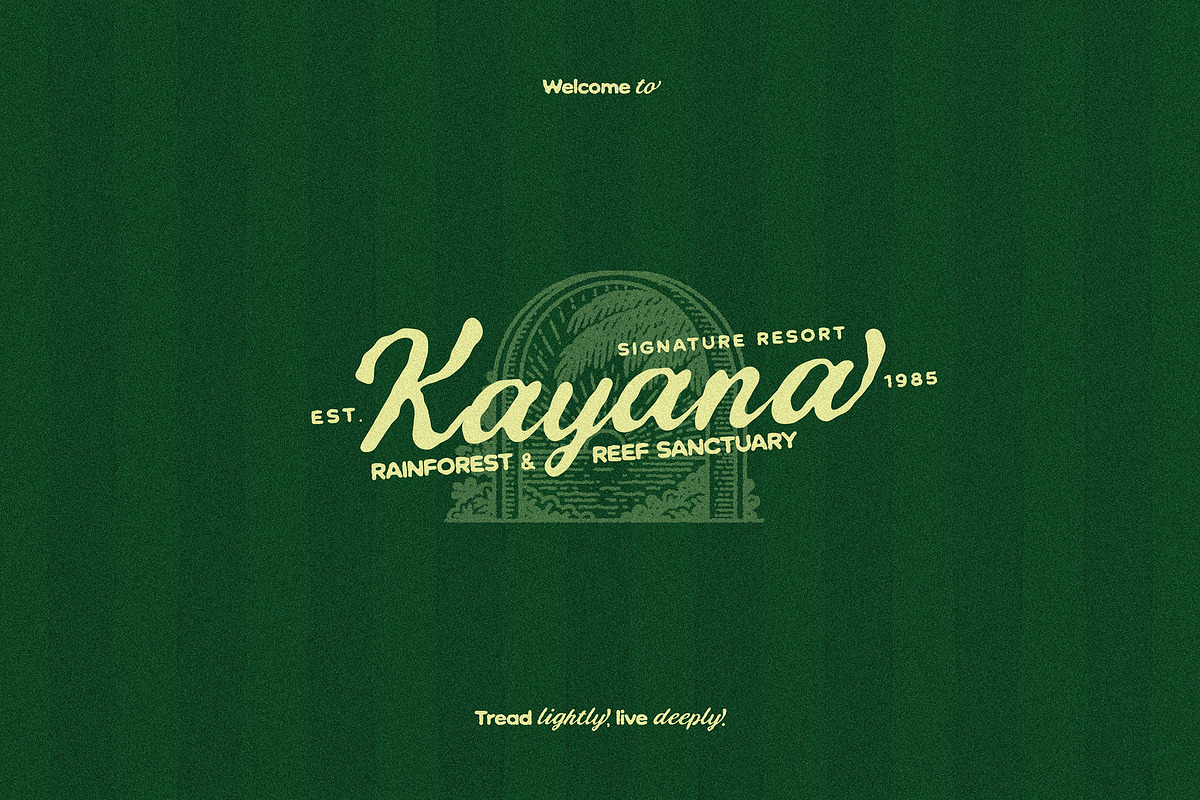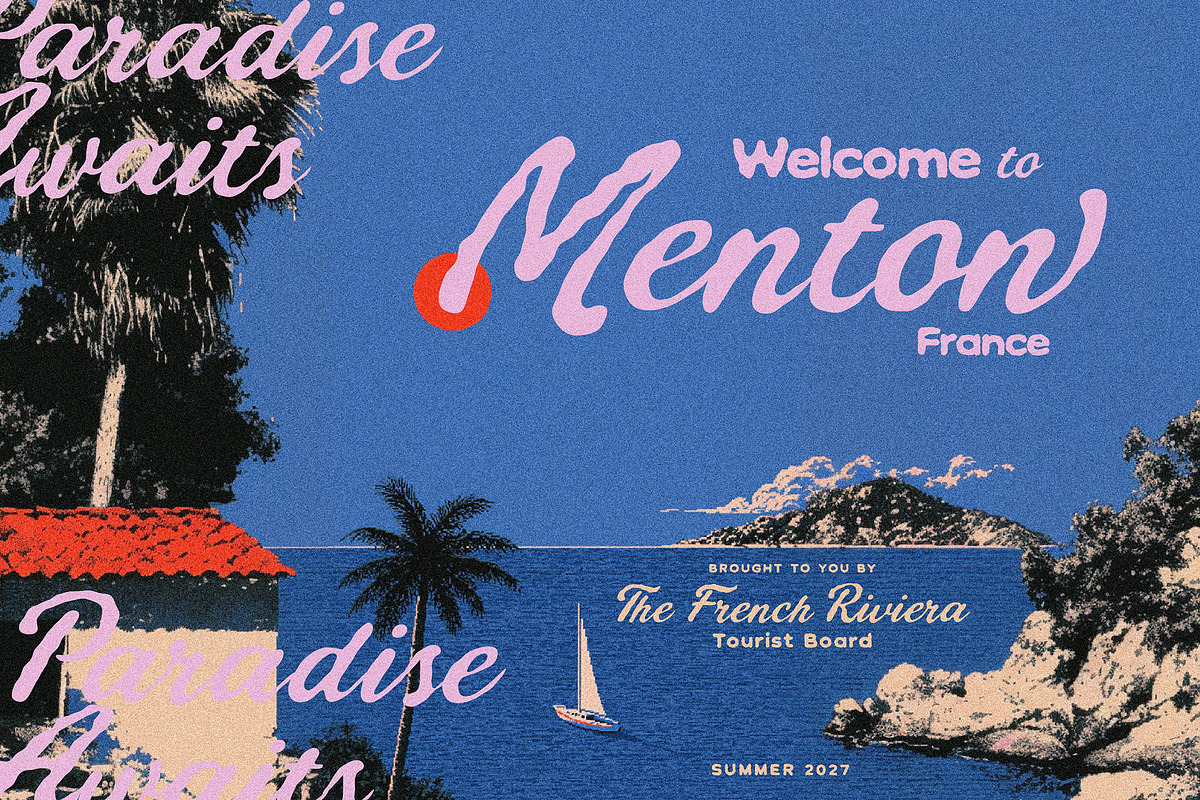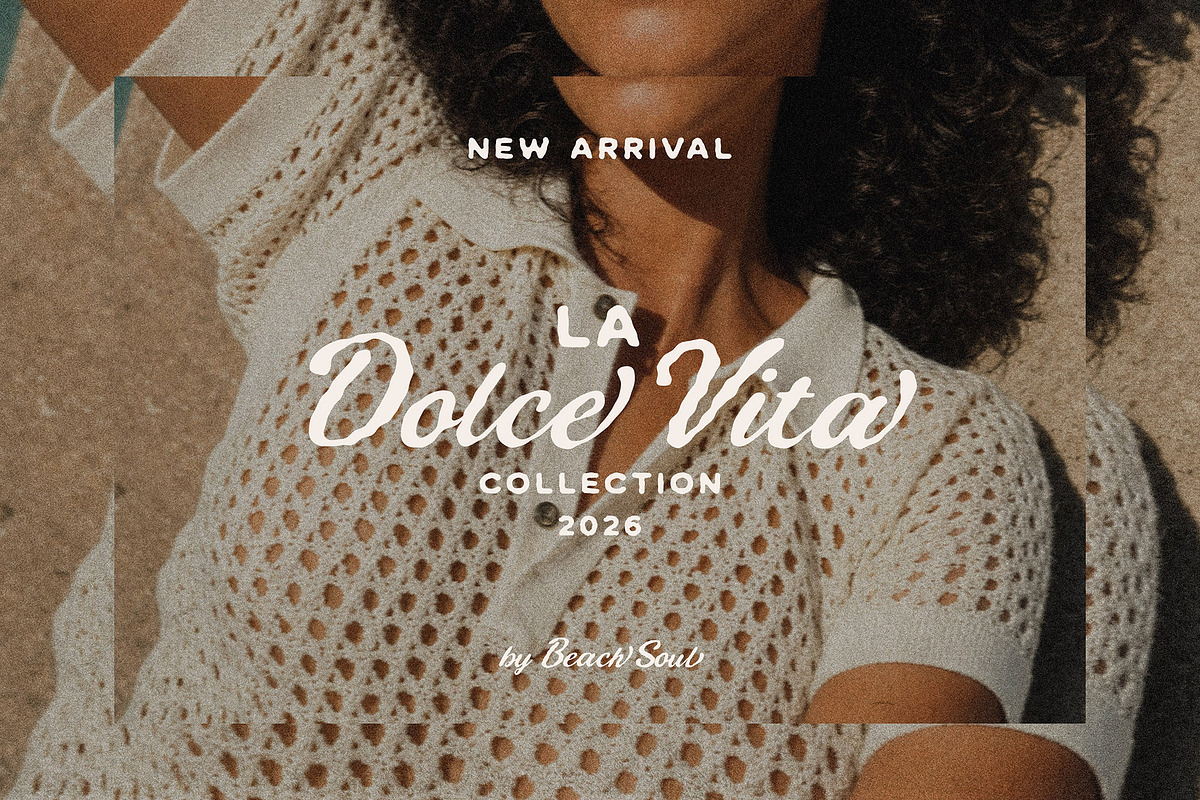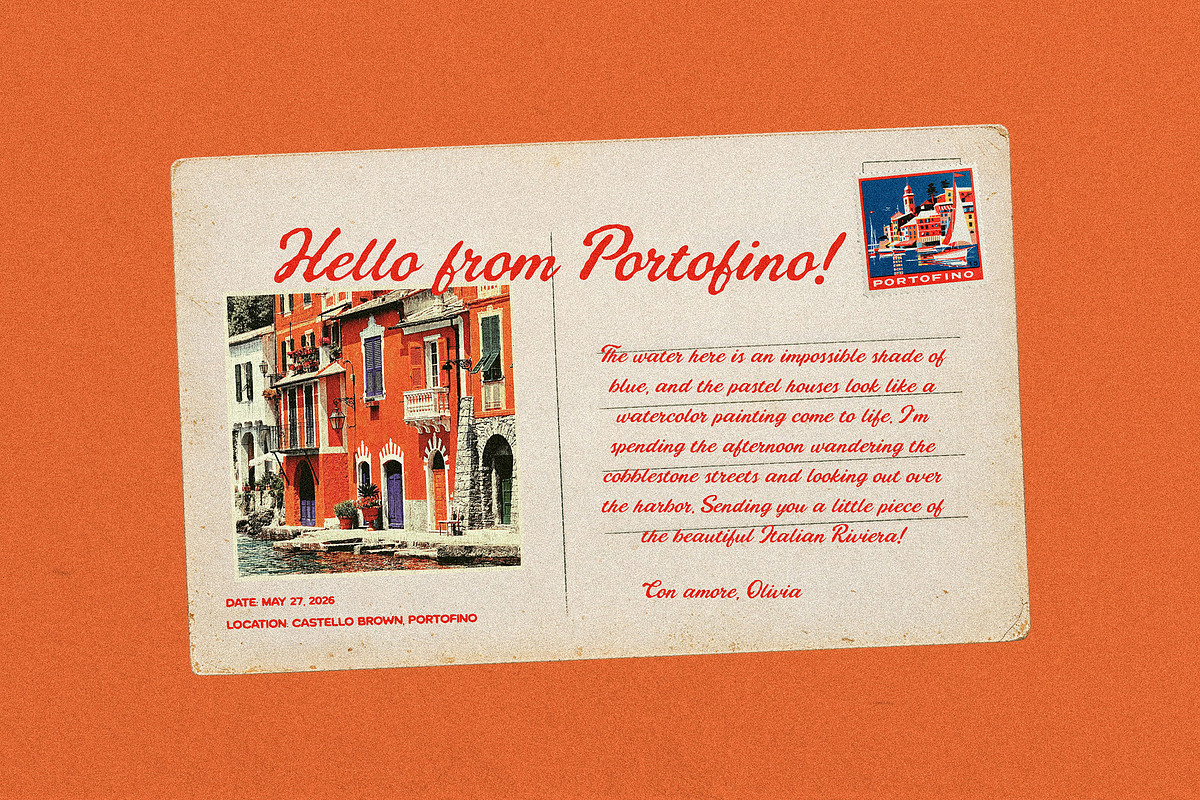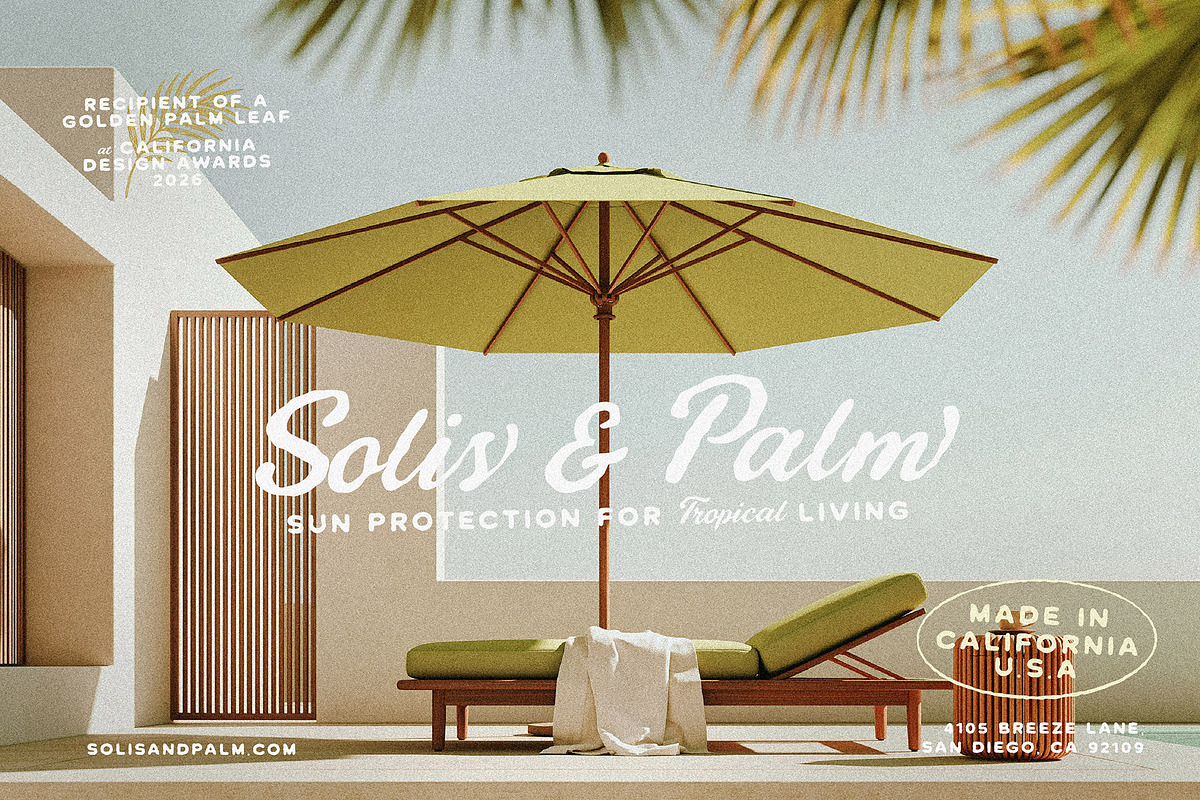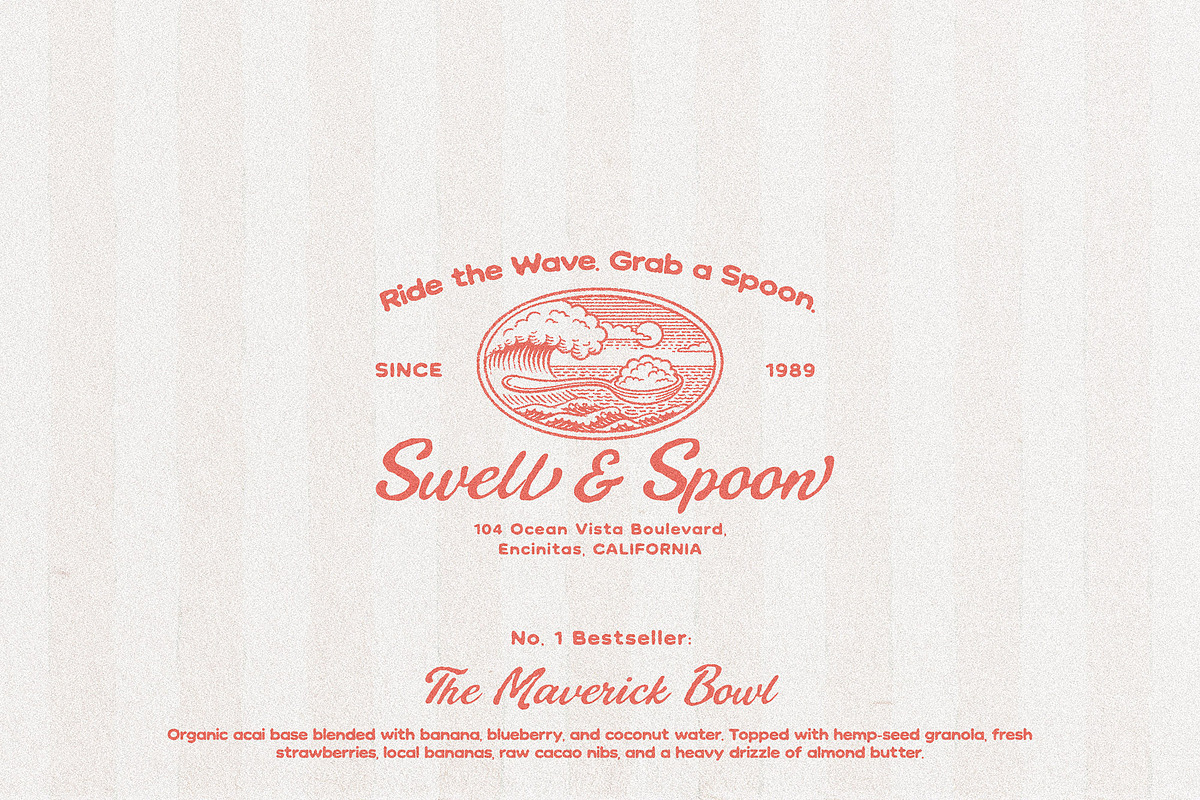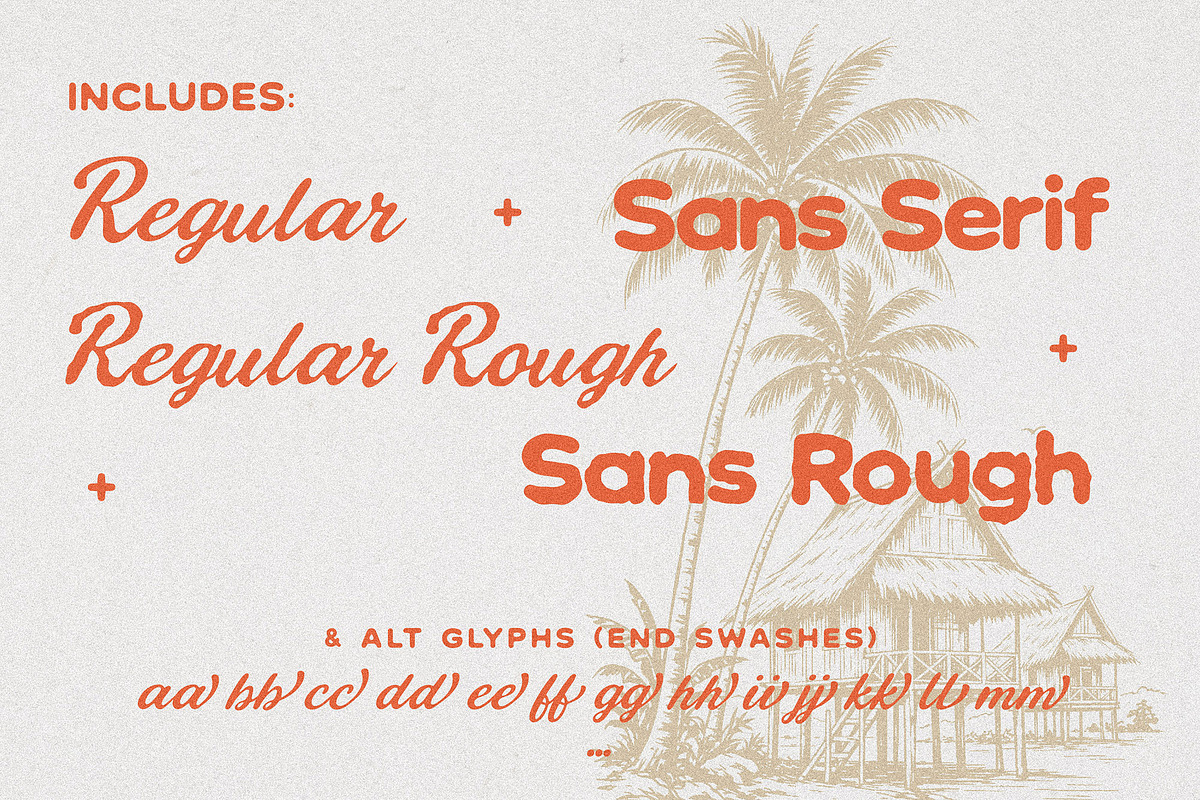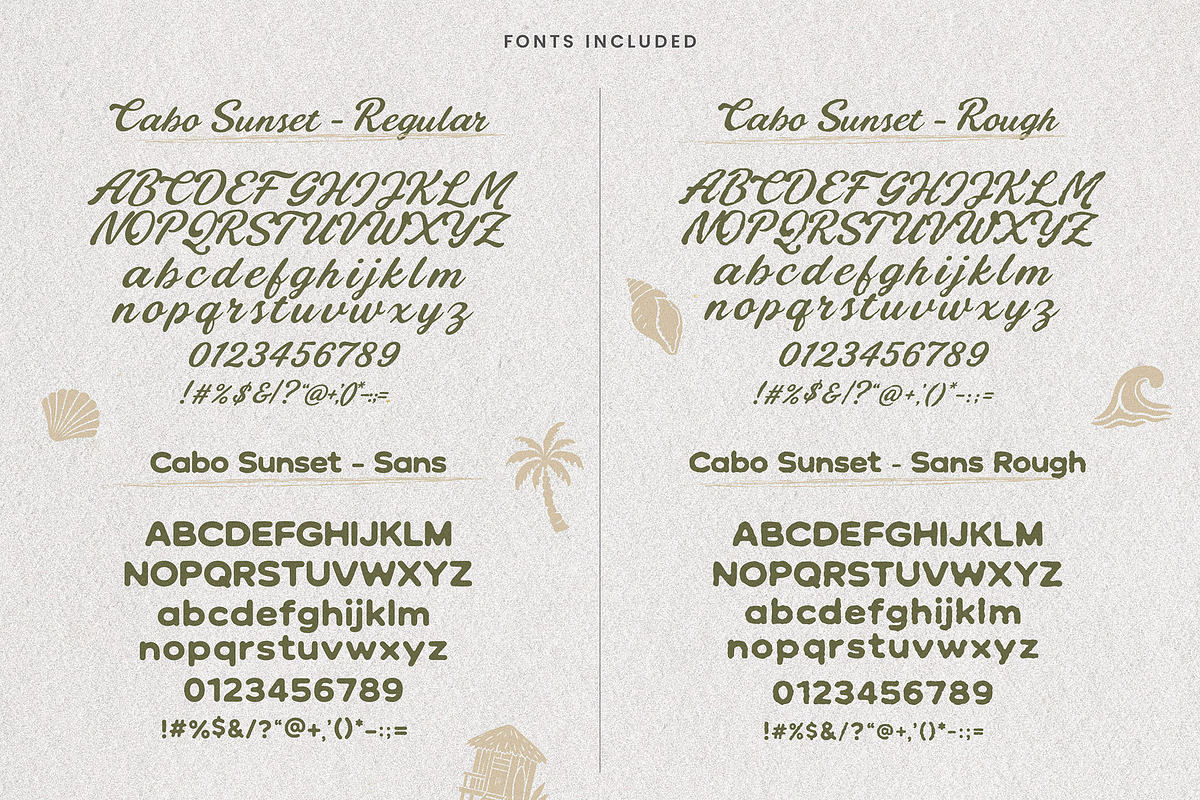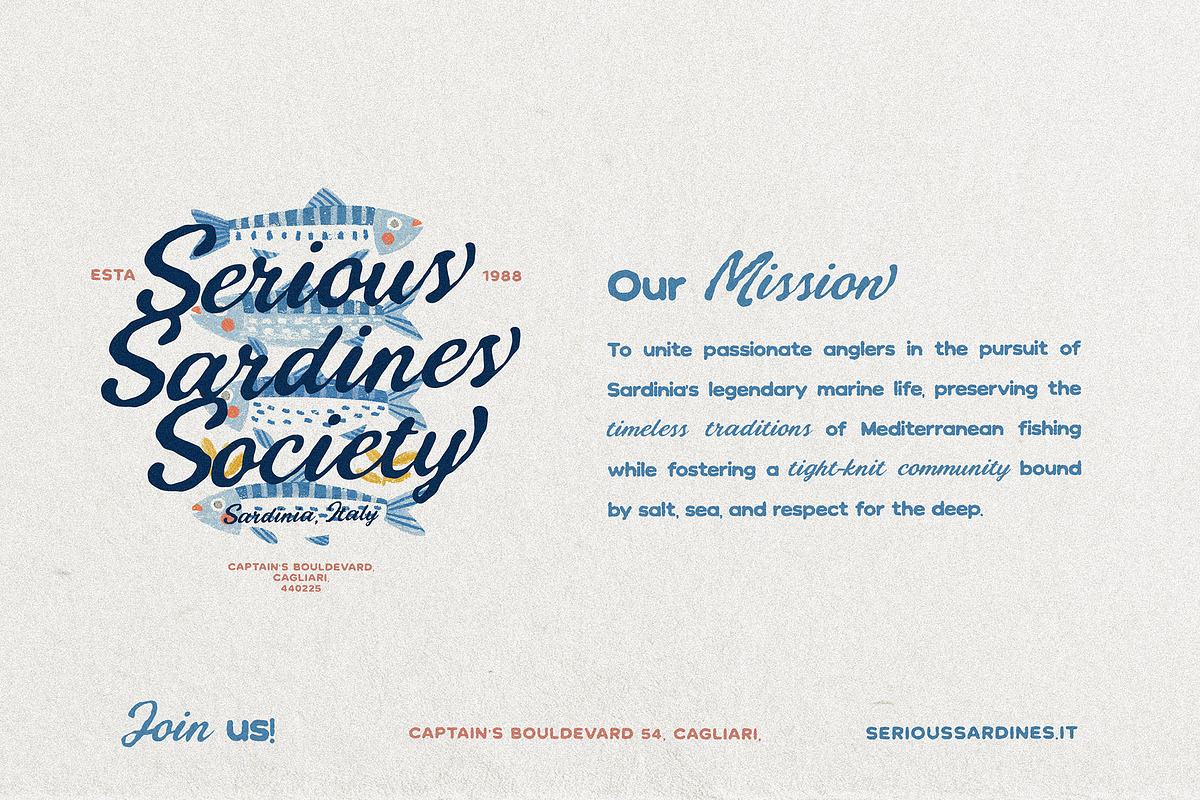
Cabo Sunset - Tropical Retro Font
If you’re looking to bring a little warmth, sunshine, and effortless beachside energy to your next project, you’ve officially found your match.
Meet The Cabo Sunset, a hand-crafted font duo designed to take the guesswork out of pairing. This font captures that retro, laid-back, and sun-drenched vintage feeling you can use to bring summer charm to your projects.
Whether you're designing for a client or working on a fun weekend DIY, this duo brings an instant, organic warmth that feels super fresh and authentic.
You get two distinct fonts that were literally made for each other:
The Tropical Brush Script: A gorgeous, flowy, hand-lettered script with plenty of alt glyphs (end swashes). It feels organic, carefree, and looks like it was painted on a wooden surf shack sign.
The Rounded Sans: A friendly, clean, and slightly chunky sans-serif. It’s super easy to read and acts as the perfect grounding companion to the expressive script.
Branding & Logos: Ideal for surf shops, boutique hotels, wellness coaches, swimwear lines, or cozy cafes.
Summer Merch & Apparel: Create t-shirts, tote bags, and baseball caps that people actually want to wear.
Social Media Graphics: Make your Instagram quotes, Pinterest pins, and TikTok covers stop the scroll with effortless, sun-kissed style.
Packaging Design: Give organic skincare, tropical juices, craft beers, or artisanal candles a premium, hand-made feel.
Event Stationery: Perfect for beach weddings, backyard pool parties, summer festivals, or menu designs.